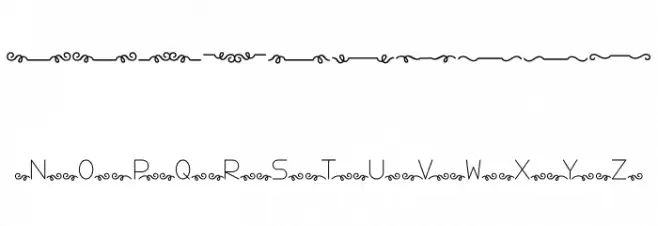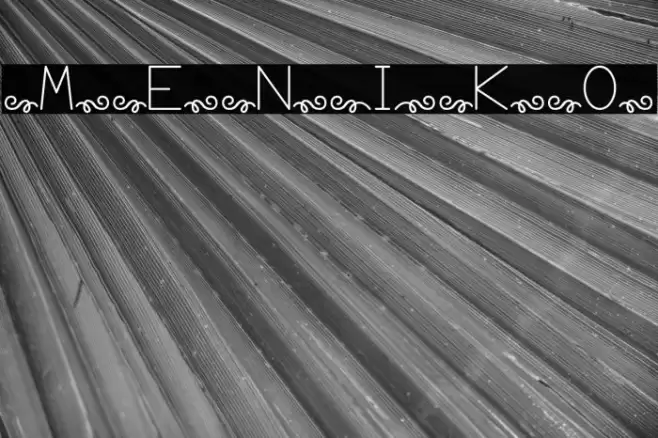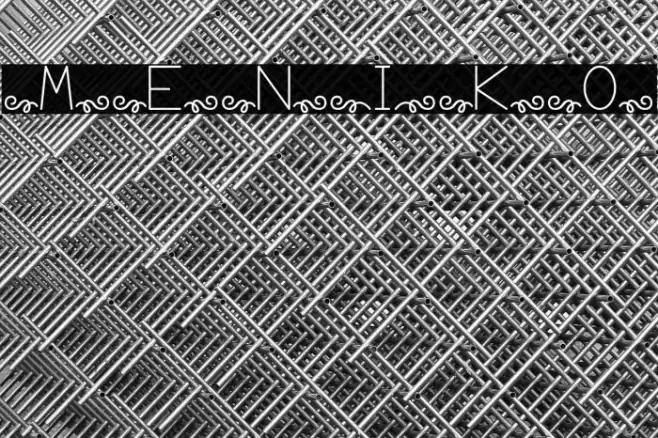
meniko Font
meniko Description
This font features an intricate and decorative style, characterized by elegant swirls and flourishes that extend from each character. The letters are thin and elongated, giving them a delicate appearance, while the embellishments add a whimsical and artistic flair. The overall design is highly ornamental, making it suitable for creative and expressive projects. The font maintains a consistent style across uppercase, lowercase, and numeric characters, with special characters also adorned with similar decorative elements. The intricate details suggest a handcrafted feel, reminiscent of vintage calligraphy.
| Use Case | Headlines, Artistic projects, Invitations |
| Proposed Projects | Ideal for wedding invitations, greeting cards, artistic posters, and branding that requires a touch of elegance and sophistication. |